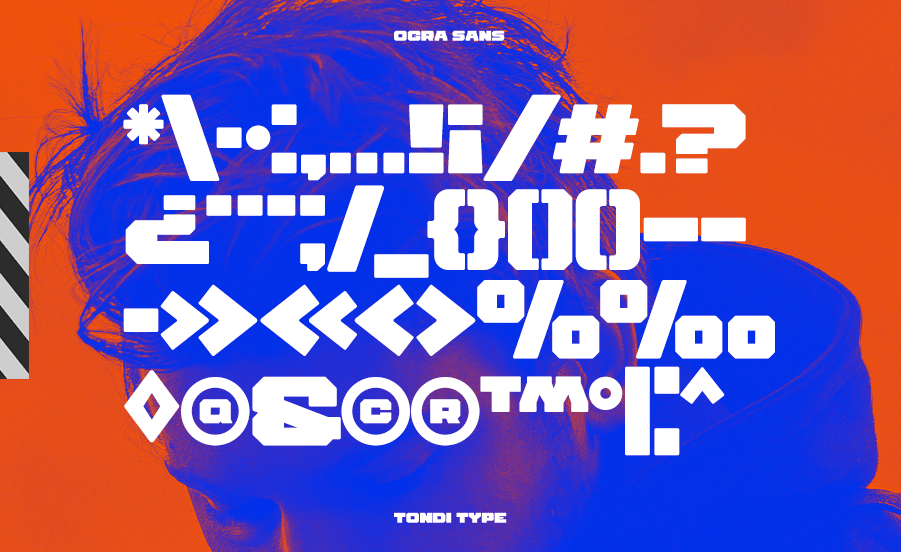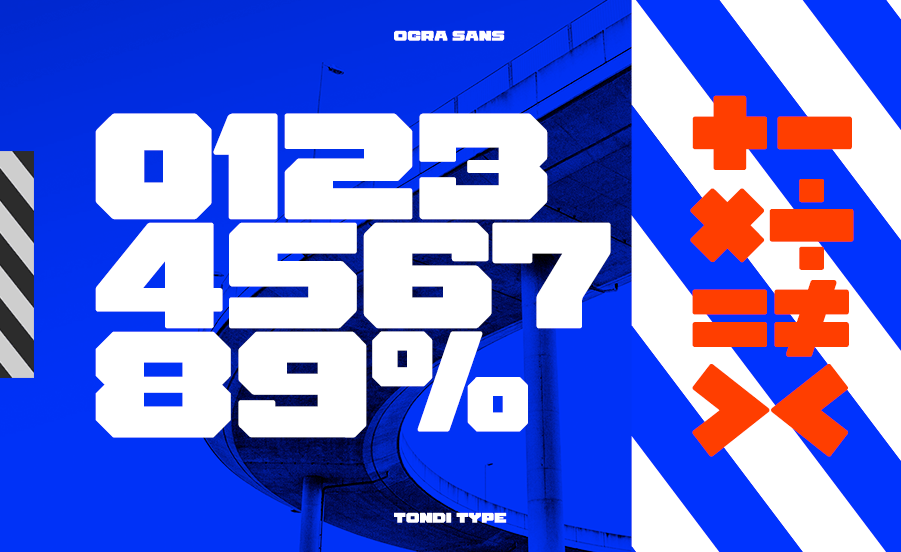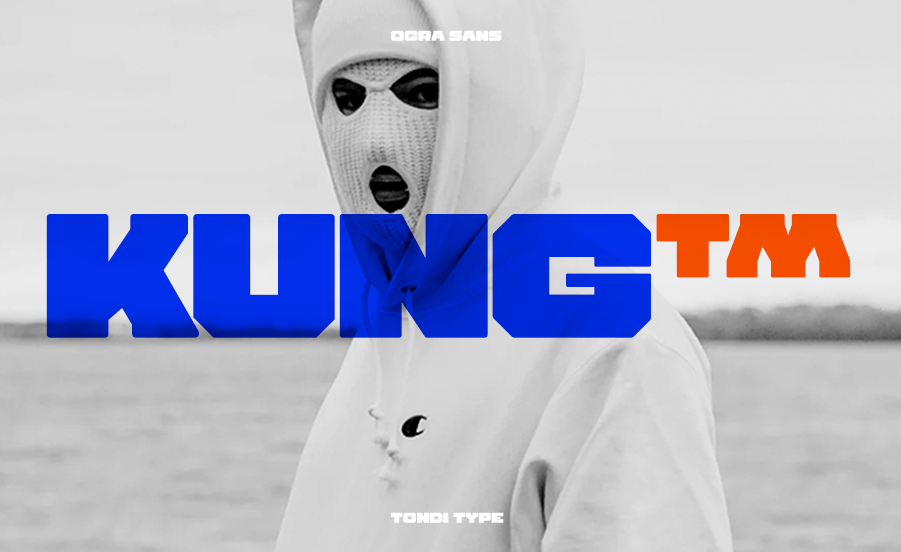
Ogra Sans | Free Block Font
Ogra sans Premium is geometric display font with a modern and industrial appeal. This typeface was created as part of a duo, Durango & Ogra Font Duo.